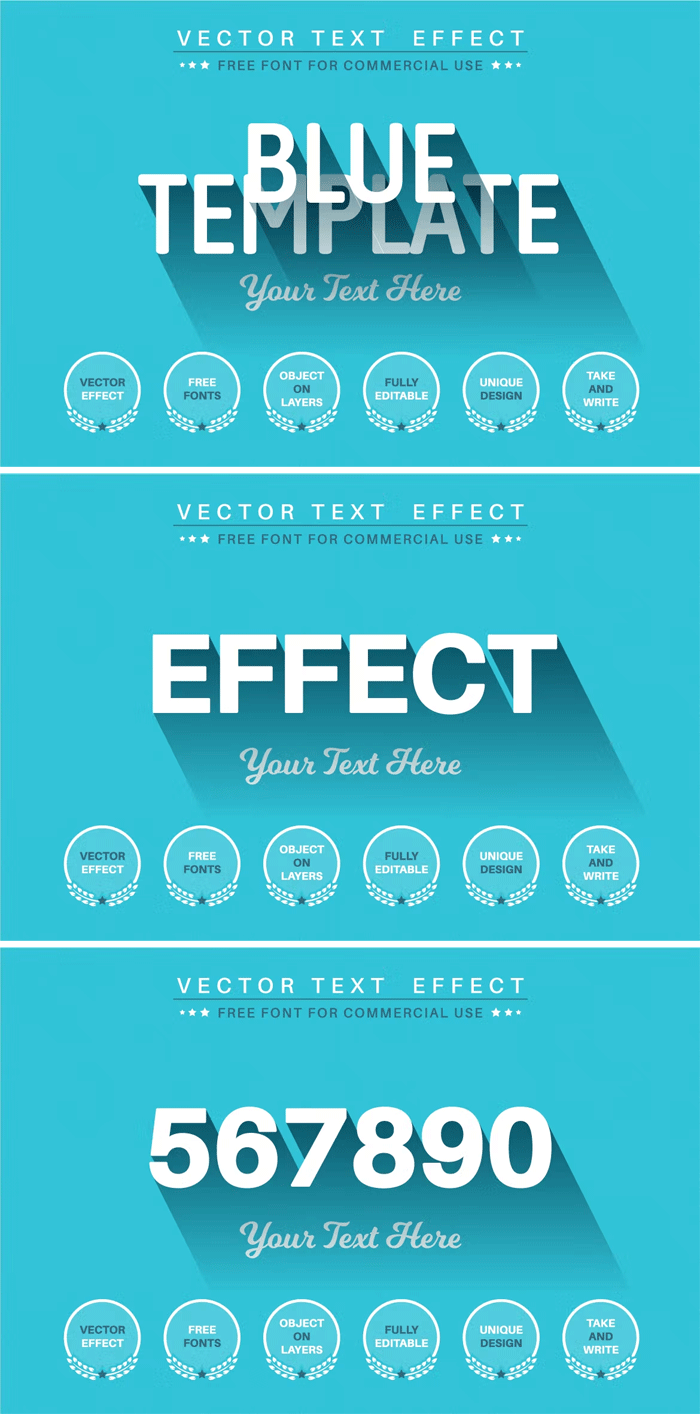
Long Shadow Editable Text Effect, Font Style
Here in this post, you can Free Download Long Shadow Editable Text Effect, Font Style 29XGDZ2 compress files through the below link. new text effect Just write your word and the effect will apply! Be as creative as you like to be in expressing yourself using this unique “Long Shadow”. Effect is perfect for any project that needs a unique handy touch whatever else your imagination leads you to! You Can Also Download Sticker Shadow Editable Text Effect, Font Style.
Long Shadow Editable Text Effect